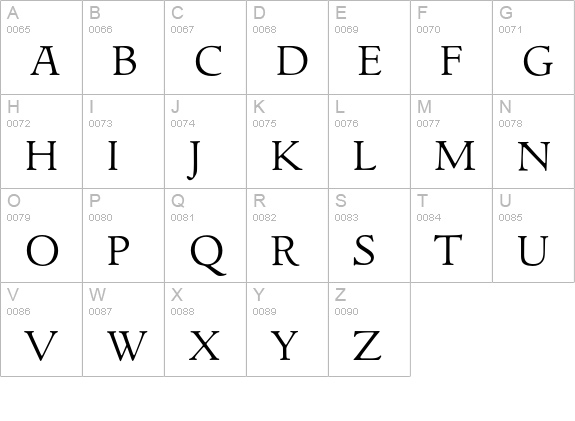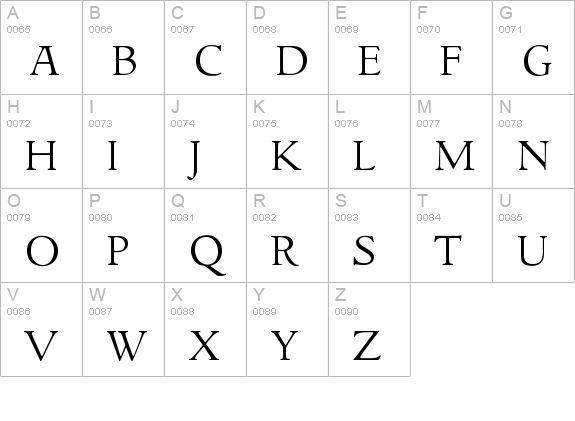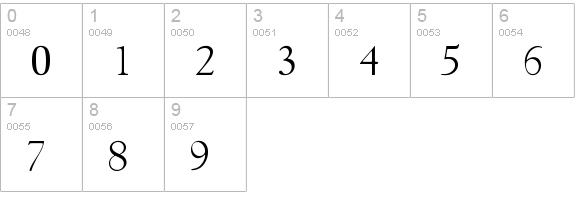
Goudita-Light is a refined, elegant variant in the Goudita typeface family \xE2\x80\x94 well suited to elegant body text, refined sub-headings, and luxury branding.
Goudita-Light is a modern and elegant font that exudes sophistication and style. With its clean lines and delicate curves, this font is perfect for adding a touch of class to any design project. The light weight of Goudita-Light gives it a delicate and airy feel, making it ideal for use in headings, quotes, and other display text. The best part about Goudita-Light is that it is completely free to download. You can easily access this beautiful font at FontsMarket.com and enhance your projects with its graceful and refined aesthetic. Whether you're working on a website, poster, invitation, or any other creative endeavor, Goudita-Light is sure to elevate your design with its timeless appeal. Download Goudita-Light today and add a touch of elegance to your work.